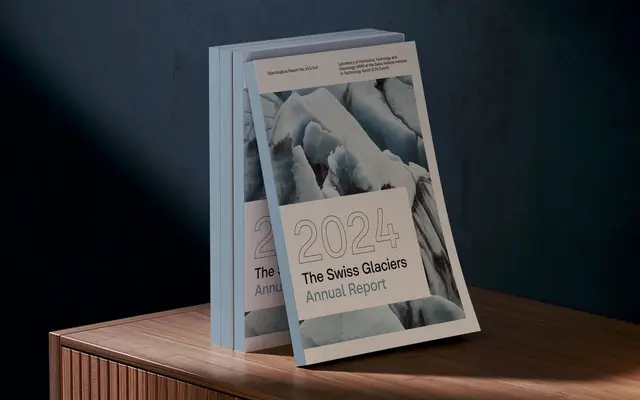
Piz Grotesk
Serpentype · Silvio Meier, Nando Schmidlin
A Swiss-inspired static grotesque by Silvio Meier and Nando Schmidlin, featuring ink-trap detailing, rectangular terminals and an extended mathematical character set aimed at technical work.
Nine weights from Thin to Black, each with a matching oblique, make up this mid-century Swiss-influenced grotesque. Ink-traps at stroke junctions evoke glacial crevasses and add character at small sizes, while a generous x-height and uni-width numerals make it serviceable for reports, diagrams and dense technical documents. Stylistic sets offer alternate letterforms including a single-storey 'a', school 'y' and circled figures.
A static grotesk drawing directly from mid-century Swiss typography, with rectangular terminals and ink-traps that place it firmly in the grotesque tradition rather than geometric or humanist.